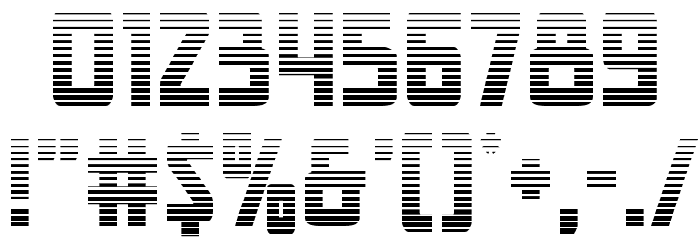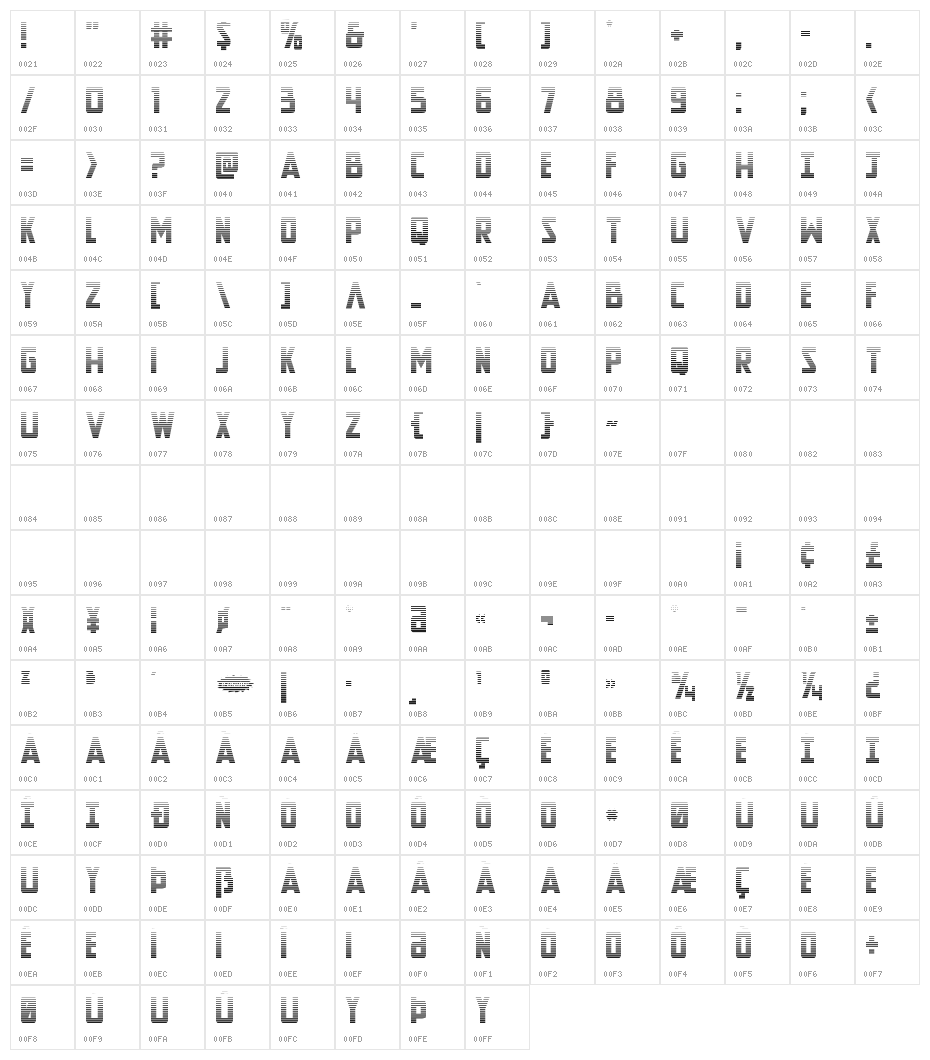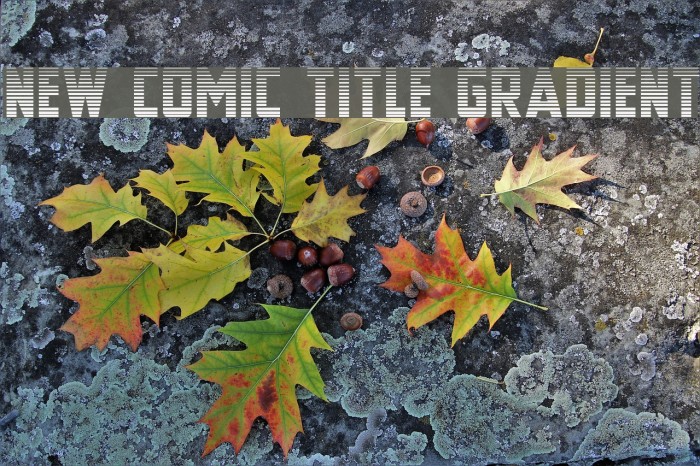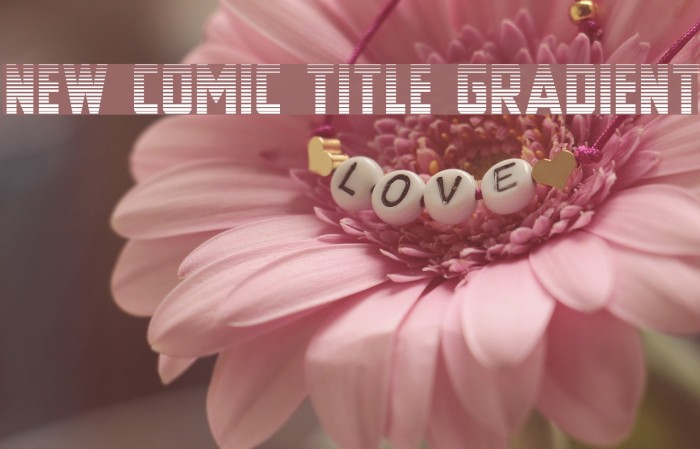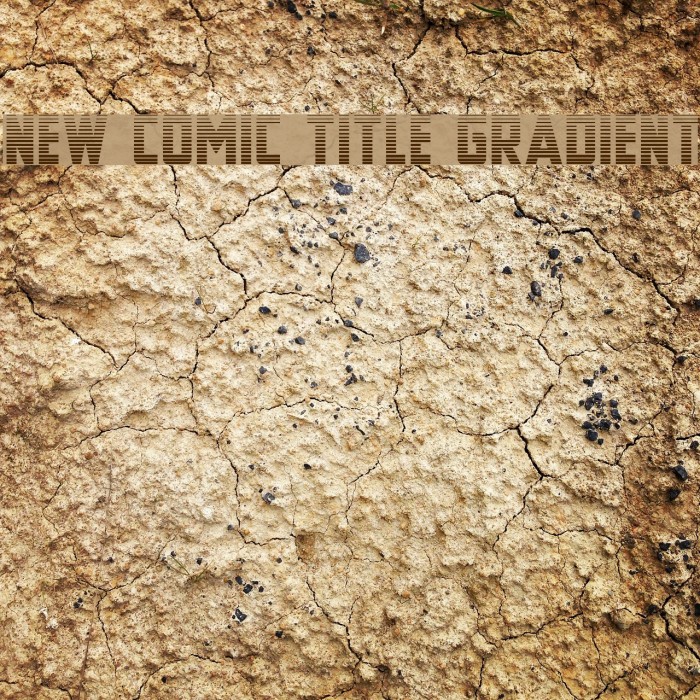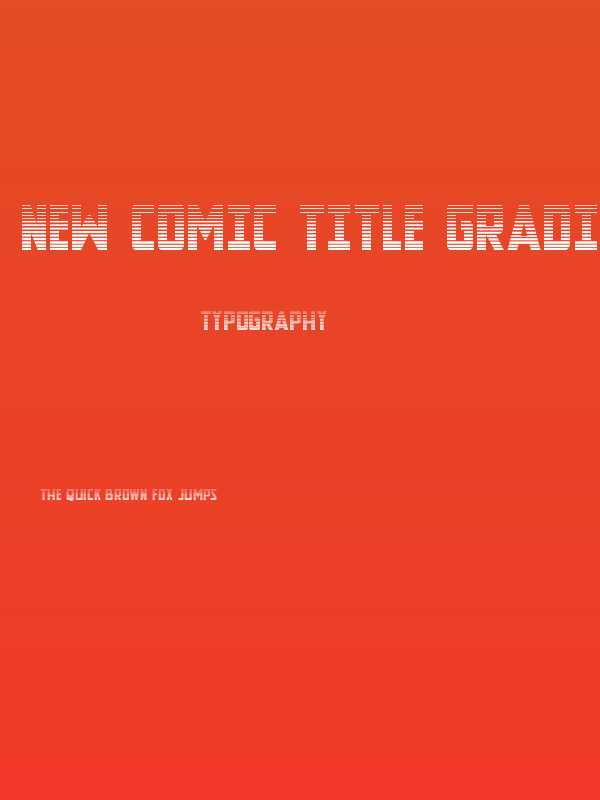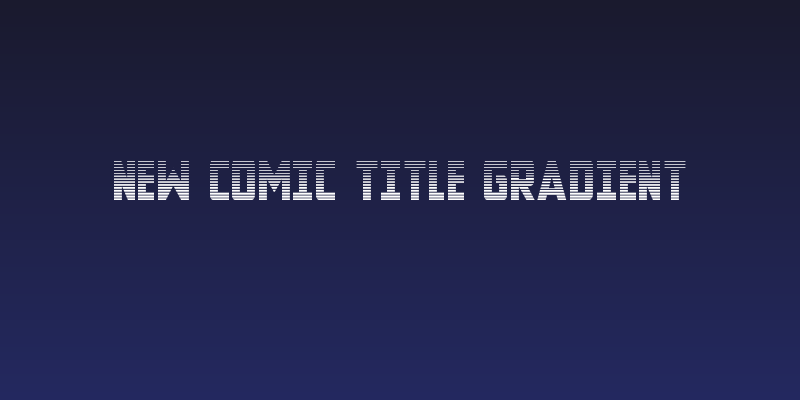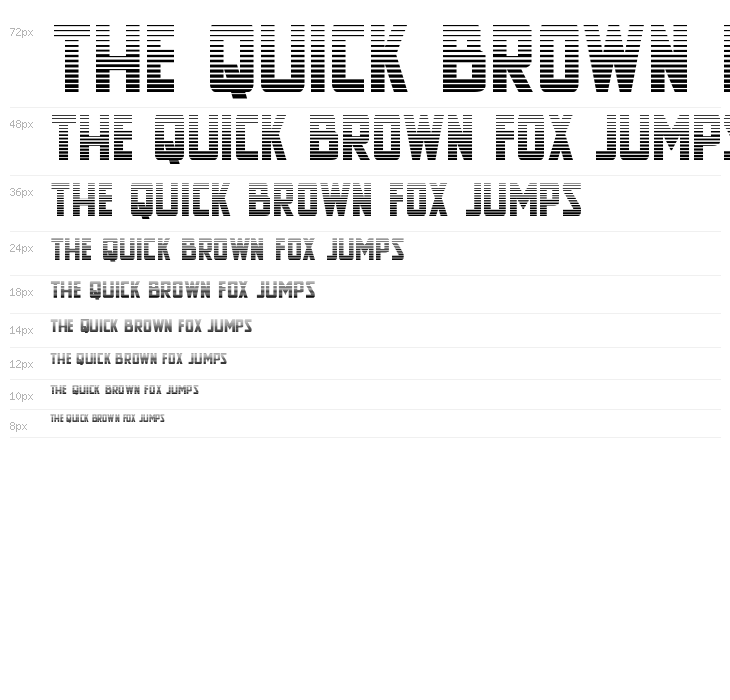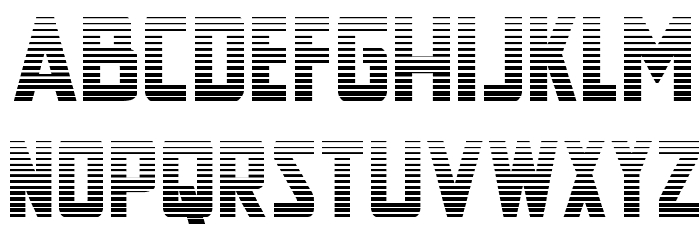
New Comic Title Gradient Font
New Comic Title Gradient Description
This font features a bold, modern design with a unique striped pattern that creates a sense of movement and energy. The uppercase and lowercase letters are designed with consistent horizontal lines that give the font a futuristic and dynamic appearance. The numbers and special characters follow the same pattern, ensuring a cohesive look across all text. The font's distinct style makes it ideal for eye-catching headlines and titles, particularly in creative and contemporary projects.
| Proposed Projects | Ideal for comic book titles, posters, video game graphics, and modern branding projects. |